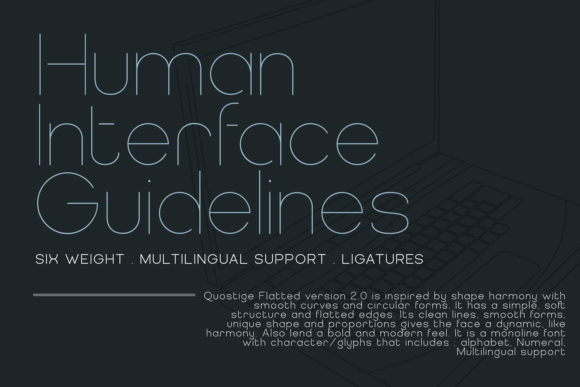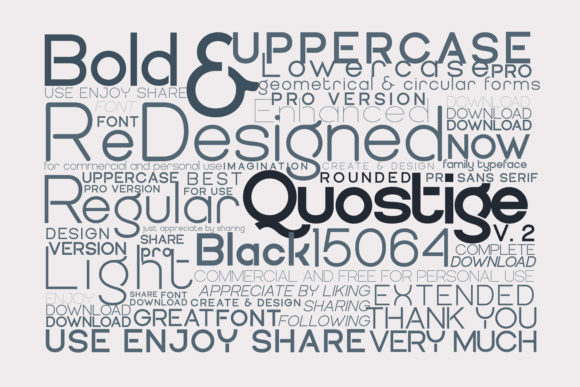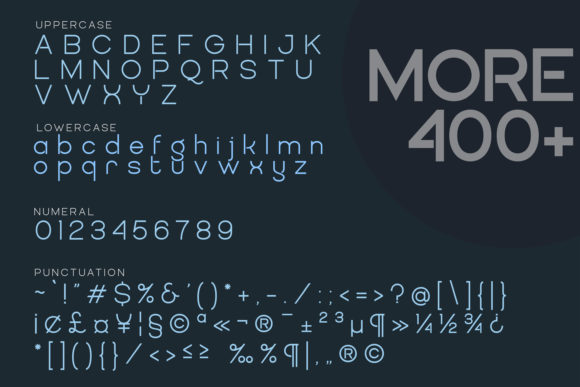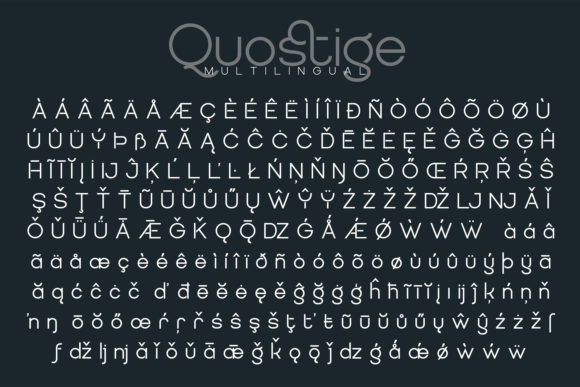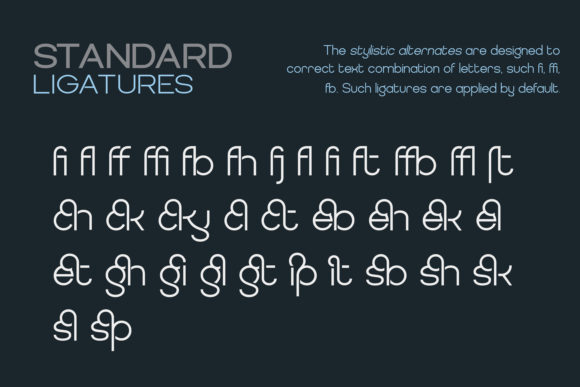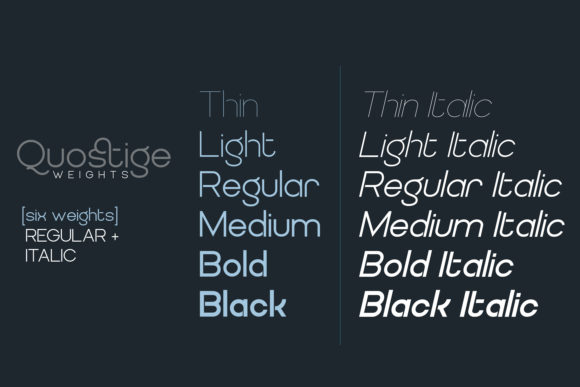
Introduction to Quostige Font
Quostige is a minimal and neat sans serif font.
Key Features of Quostige Font
Why Choose Quostige Font?
Quostige Font offers exceptional quality and versatility, making it a valuable addition to your design toolkit. Whether you’re creating for personal projects or commercial use, Quostige Font delivers professional results.